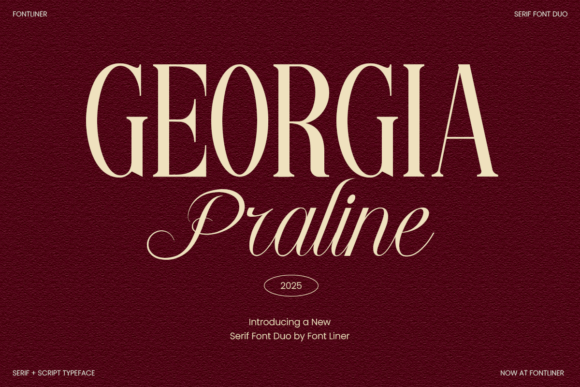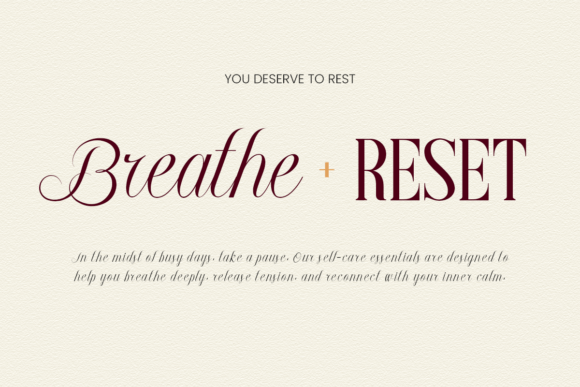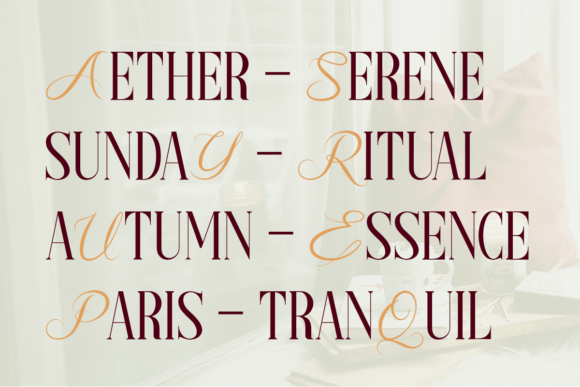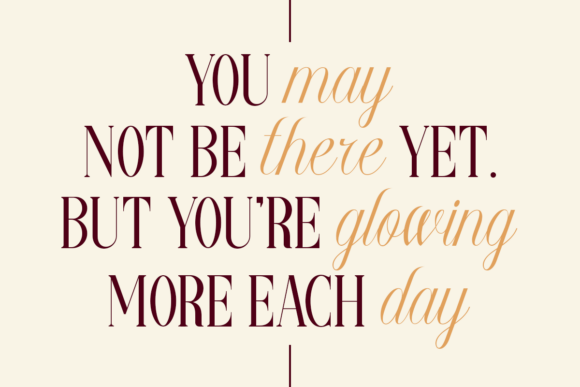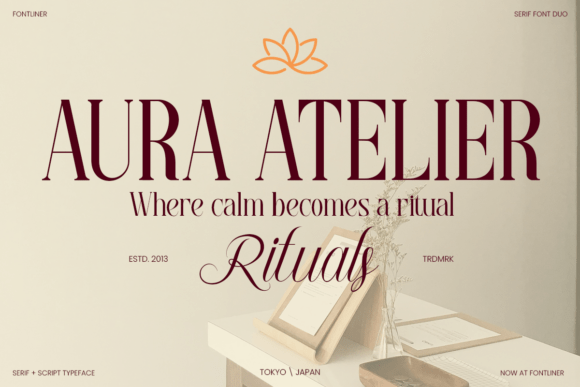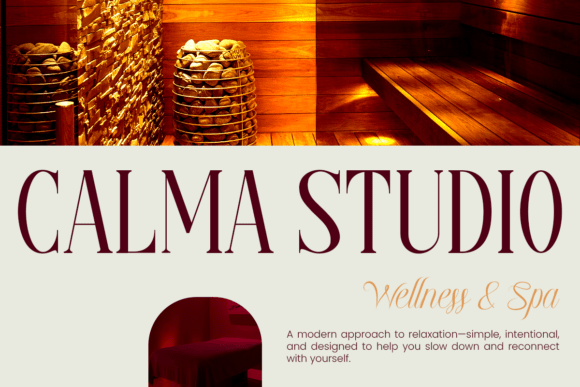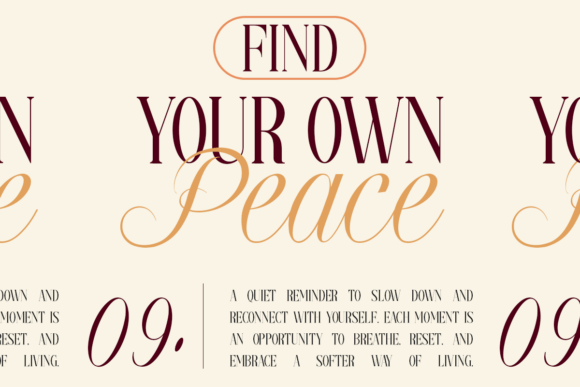
Discovering the Timeless Elegance of Georgia Praline Font
As designers, we’ve all been there – staring at a blank canvas, searching for the perfect font to bring our vision to life. The moment it clicks, the typeface that perfectly captures the essence of our project, is pure magic. For me, that moment came when I stumbled upon the Georgia Praline Font, a sophisticated serif font duo that exudes classic elegance with a touch of whimsy.
Georgia Praline Font is a masterful blend of clarity and personality, making it an ideal choice for branding, wedding designs, and editorial layouts. Whether used together or separately, this font duo ensures a cohesive and elegant look, perfect for projects that demand sophistication and artistic flair.
For designers, the value of Georgia Praline Font lies in its ability to elevate any project with its high-end aesthetic, making it a powerful tool in our creative arsenal. With its versatility and timeless charm, this font is sure to become a favorite among designers looking to add a touch of romance and sophistication to their work.
Georgia Praline Font Features
- Font Family: Georgia Praline is a script font designed to resemble handwriting, perfect for adding a personal touch to your designs.
- Unique Characteristics: This script font features elegant, flowing lines and subtle flair, giving it a distinctive, hand-written feel that’s perfect for creative projects.
Designer Review: Georgia Praline Font
Overall, I’m quite impressed with the Georgia Praline Font. It has a certain charm that’s reminiscent of a bygone era. ✨ The font’s warm and inviting tone makes it perfect for crafting a nostalgic or vintage aesthetic in your designs.
- The subtle swashes and flourishes add a touch of elegance to the font, making it suitable for high-end branding and packaging designs.
- The font’s bold and light weights provide a great range of options for designers, allowing them to create visually appealing contrasts and hierarchies in their layouts.
- Georgia Praline Font’s open-type features make it highly legible, even at smaller font sizes.
- ⚠️ The font’s limited language support might be a concern for designers working on multilingual projects.
- ⚠️ The font’s ornate details might be overwhelming for simpler designs, making it difficult to balance the layout.
Overall, I’d give Georgia Praline Font 4 out of 5 stars. It’s a beautiful and versatile font that can add a unique touch to your designs, but it may not be the best choice for every project. With a bit of creative restraint and attention to balance, this font can be a fantastic addition to your design toolkit.
Georgia Praline Font: A Practical Application Guide
For optimal results, use the Georgia Praline font in combination with other elegant fonts and a classic color scheme.
Avoid using it for body text, as it is a decorative font best suited for headings and titles.
The Georgia Praline font is ideal for: